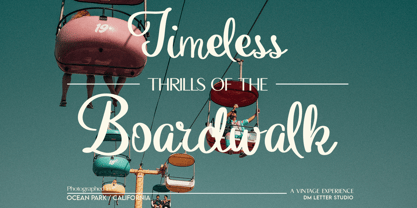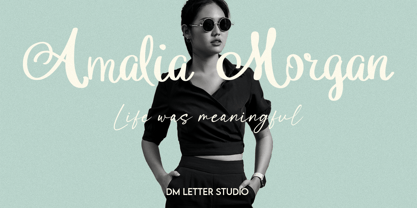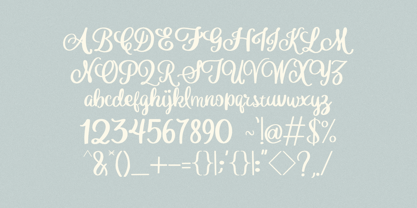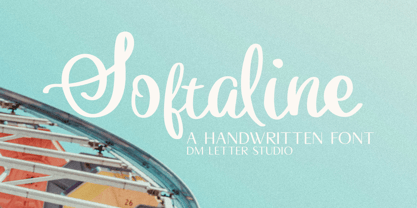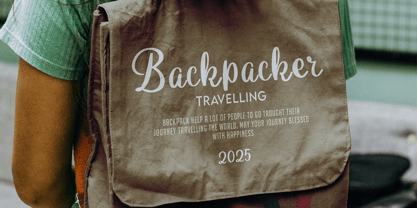
Softaline
The Softaline Font Family was designed by Dimas Prasetyo and published by DM Studio. Softaline contains 1 styles. More about this family
Meet Softaline, the Handwriting Font Softaline is a handwriting font with a soft, flowing look that feels calm, personal, and polished. The strokes are smooth and natural, so it reads like a real handwritten note, not a stiff script. Because the letterforms stay open and balanced, Softaline remains clear at small sizes while still looking expressive in headlines. Use it for branding quotes, logo accents, product cards, social posts, planners, invitations, and packaging. As a result, your designs feel warm and premium without looking overdesigned. Why Softaline sells First, it installs fast and works smoothly in Canva, Photoshop, and Illustrator. Next, the clean curves print and cut well for stickers, labels, foil accents, emboss, engraving, laser, vinyl, DTF, and sublimation. Then you can build layouts faster because the rhythm stays consistent across words and lines. Moreover, Softaline pairs beautifully with a soft serif or a neat sans, so you can create cohesive sets for bundles and seasonal drops. Therefore, you can launch new collections faster with a signature look that stays consistent. Fast layouts with the Softaline font Start with a short phrase in Softaline and keep the message simple. After that, add supporting text in a clean sans for details like dates, pricing, or product info. Because Softaline looks best with breathing room, increase line spacing slightly and avoid tight stacking. In addition, combine it with minimal icons like hearts, sparkles, or thin botanical lines to keep the focus on the handwriting. Finally, save palette pairs like black & cream, blush & cocoa, or sage & ivory to repeat across your product line. Creative uses and quick wins Quote posts, highlight covers, and story templates Product thank-you cards, care cards, and inserts Invitations, place cards, and small event signage Labels, stickers, packaging seals, and gift tags What you get Uppercase, lowercase, numbers, punctuation Natural handwriting flow for clean readability Multilingual Latin support (where included in your build) Curves tuned for print, cutting, and high-res exports Design tips for Softaline Keep copy short and let the handwriting lead. Also, add a subtle shadow or light paper grain when you want extra depth. For print, export at 300 DPI, and for web export at 2× size so edges stay smooth. If you’re cutting vinyl, go slightly larger to keep fine curves clean. Finally, pair Softaline with simple shapes and generous margins for a modern, elegant finish.
Softaline